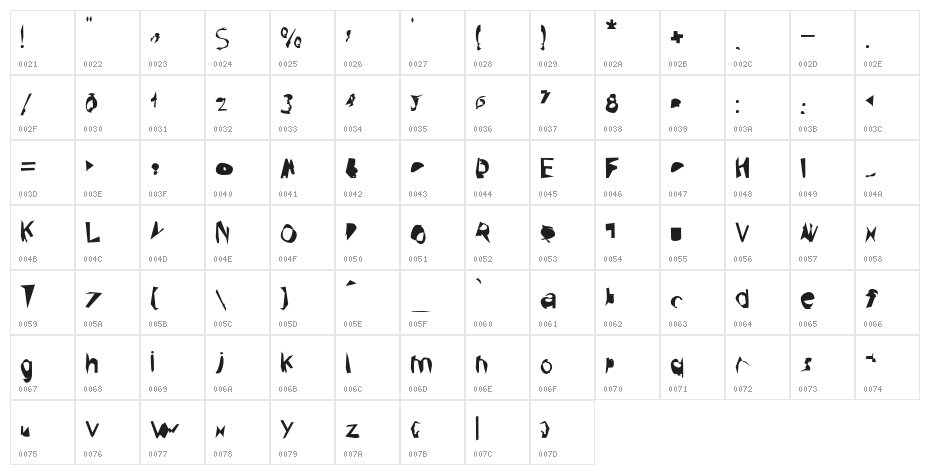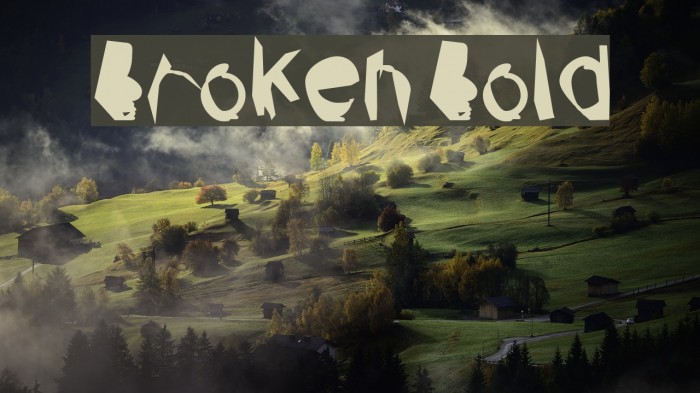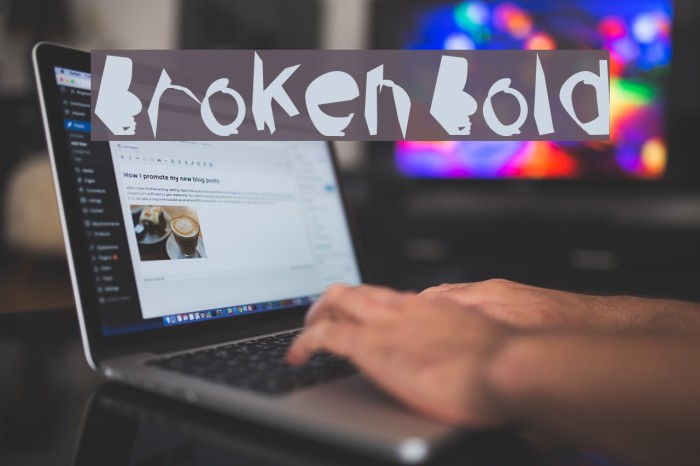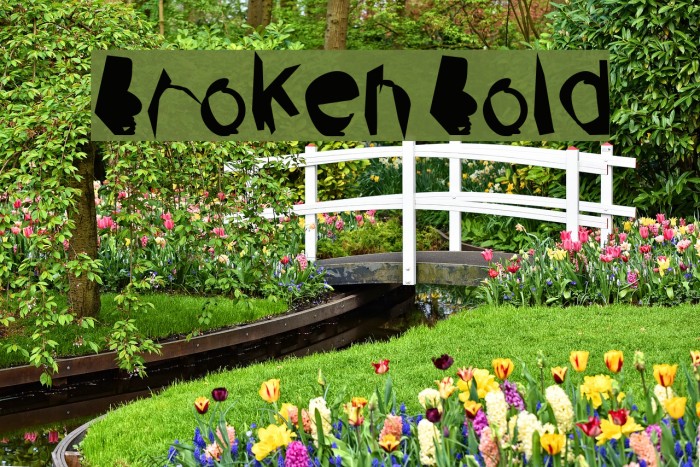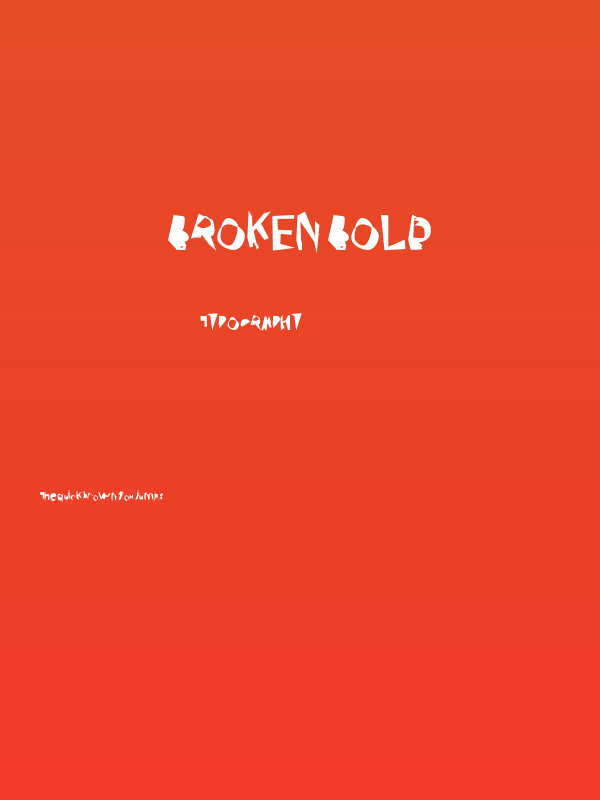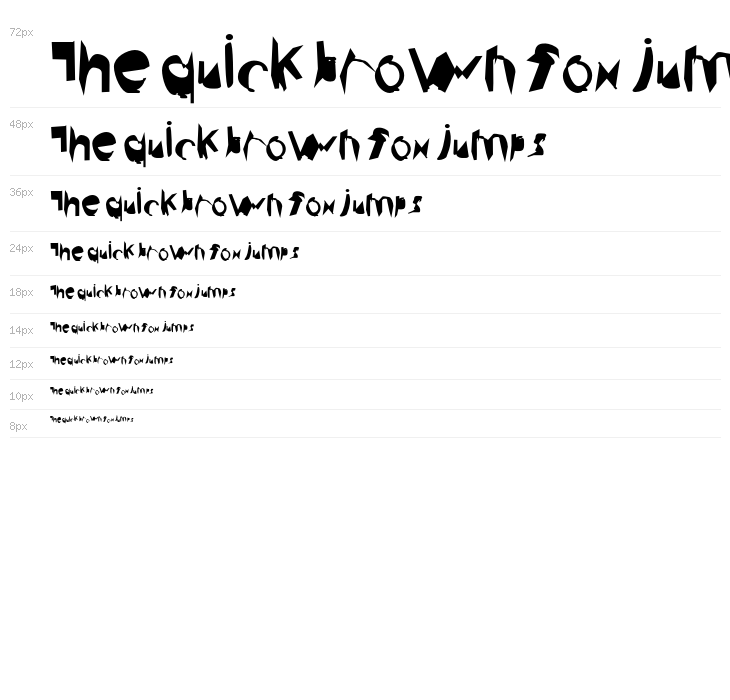
Broken Bold Font
Broken Bold Description
This font features a bold and fragmented design, with each character appearing as if it has been shattered or broken into pieces. The jagged edges and irregular shapes give it a chaotic and dynamic appearance, making it stand out with a strong visual impact. The uppercase and lowercase letters maintain a consistent style, with sharp angles and varying stroke widths that add to the font's edgy aesthetic. Numbers and special characters follow the same design principles, ensuring uniformity across all elements. This font is ideal for projects that require a bold statement or a sense of disruption and creativity.
| Overall Style | Modern, Edgy |
| Proposed Projects | Ideal for album covers, posters, edgy branding, and creative design projects. |